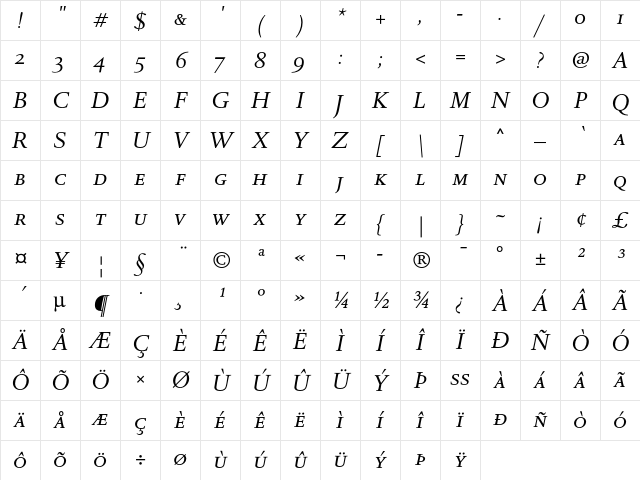
DTL Romulus T Caps Italic
Style: T Caps Italic
Foundry: Generated by DTL DataMaster
Complete DTL Romulus T Caps Italic glyph index. Displaying only characters natively supported by DTL Romulus T Caps Italic font.
Design Context for DTL Romulus
DTL Romulus is a composed and adaptable typeface that performs quietly and consistently across a wide range of design contexts. The slanted form adds forward momentum and visual energy.
Pro Tip: Use DTL Romulus for emphasis, pull quotes, and subheadings where its slanted energy can add rhythm to the layout.